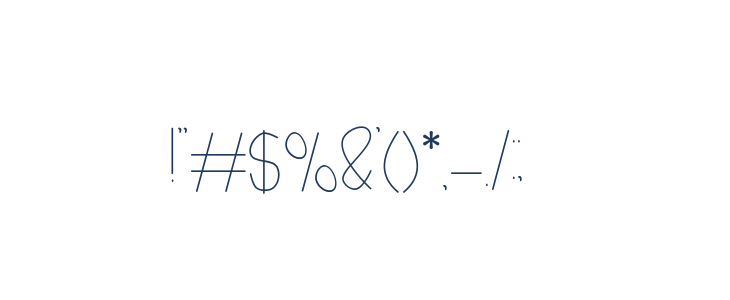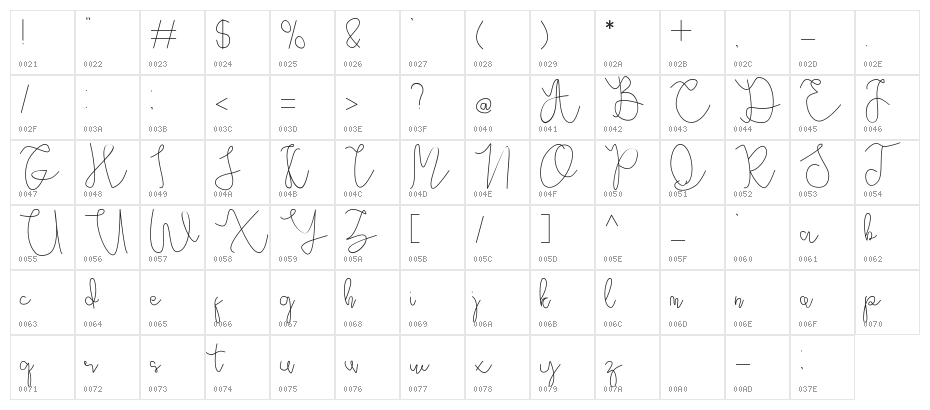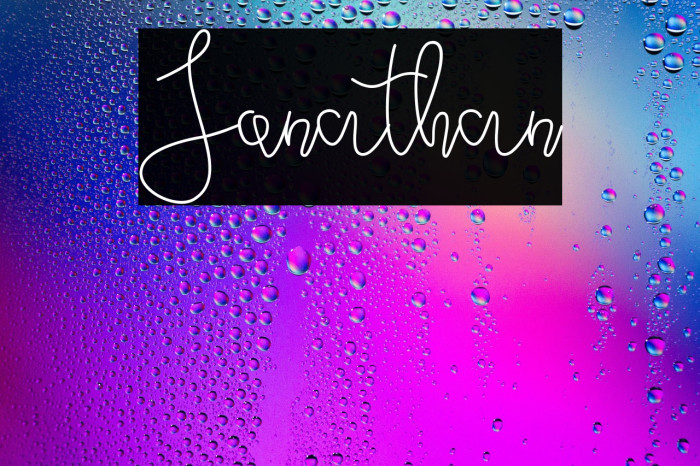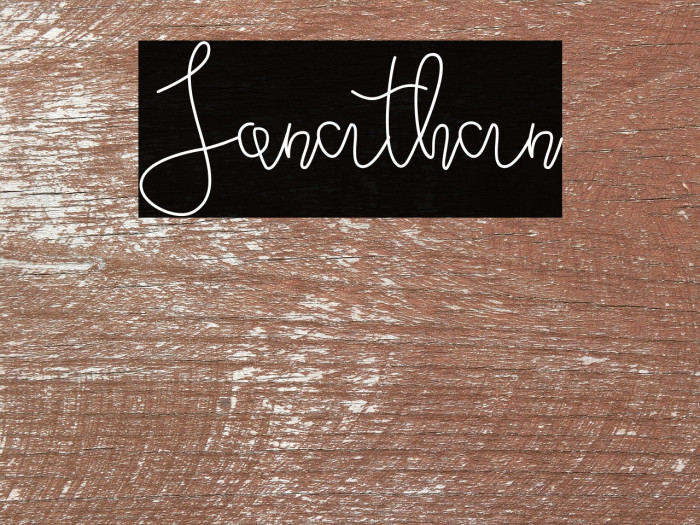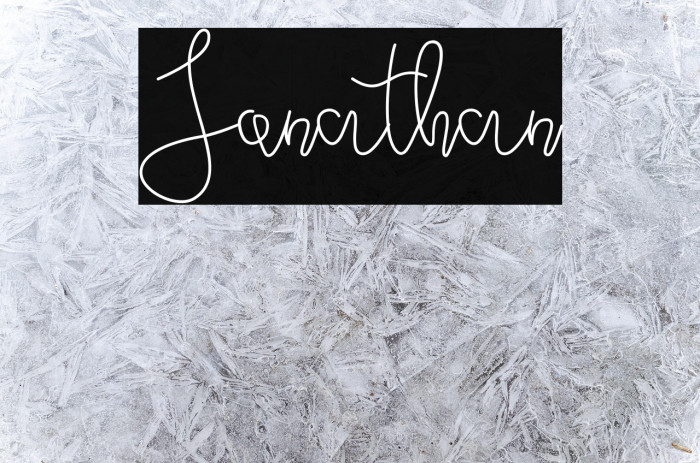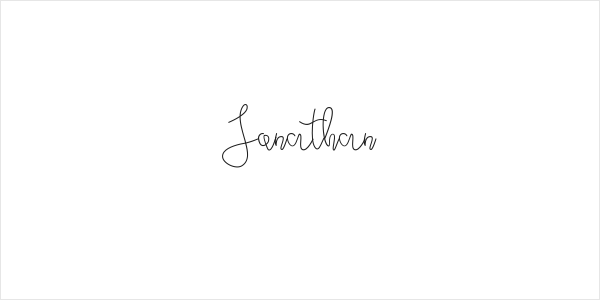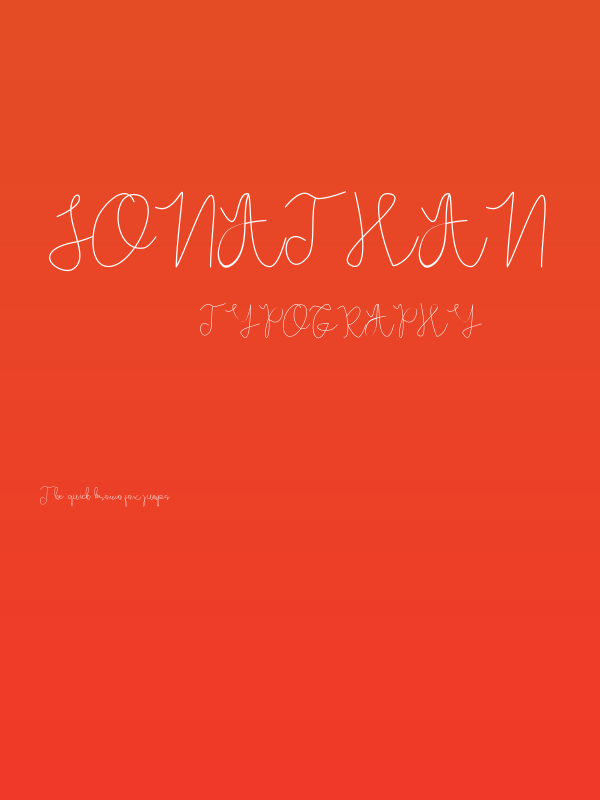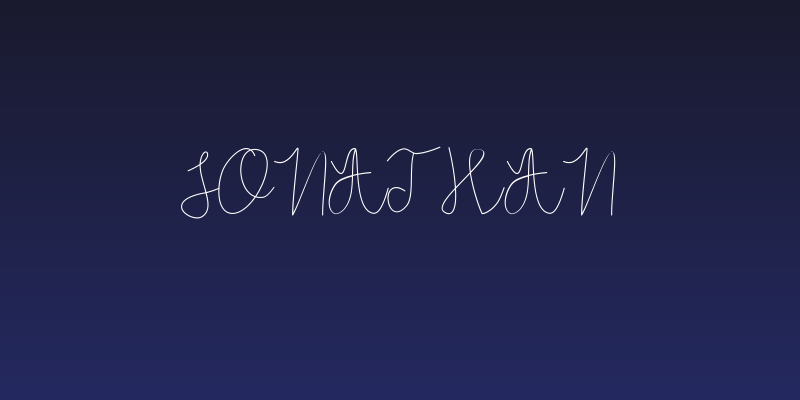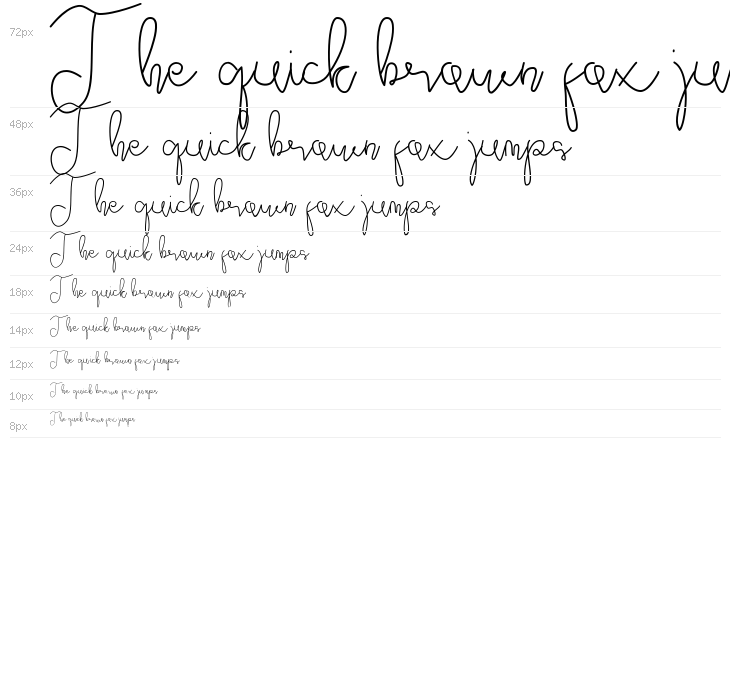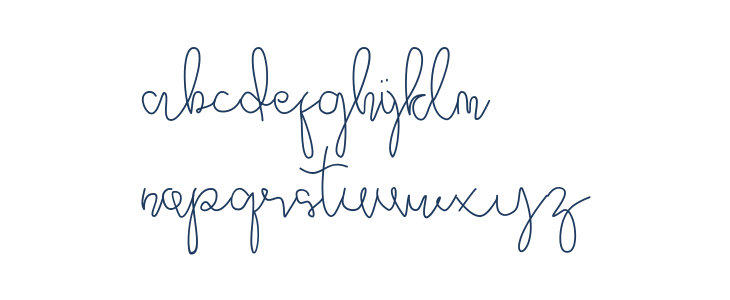
Jonathan Font
Jonathan Description
This font features an elegant and flowing script style, characterized by its delicate and continuous strokes that mimic the fluidity of handwriting. The uppercase letters are slightly more structured, maintaining a balance between formality and artistic flair, while the lowercase letters exhibit a more pronounced cursive quality with loops and swirls. The numerals and special characters are designed to complement the overall style, maintaining the same thin, graceful lines. This font exudes a sense of sophistication and charm, making it ideal for projects that require a personal and artistic touch.
Overall StyleElegant, Artistic
Use CaseInvitations, Personal branding, Artistic projects
Proposed ProjectsIdeal for wedding invitations, greeting cards, personal branding, and artistic projects that require a touch of elegance.